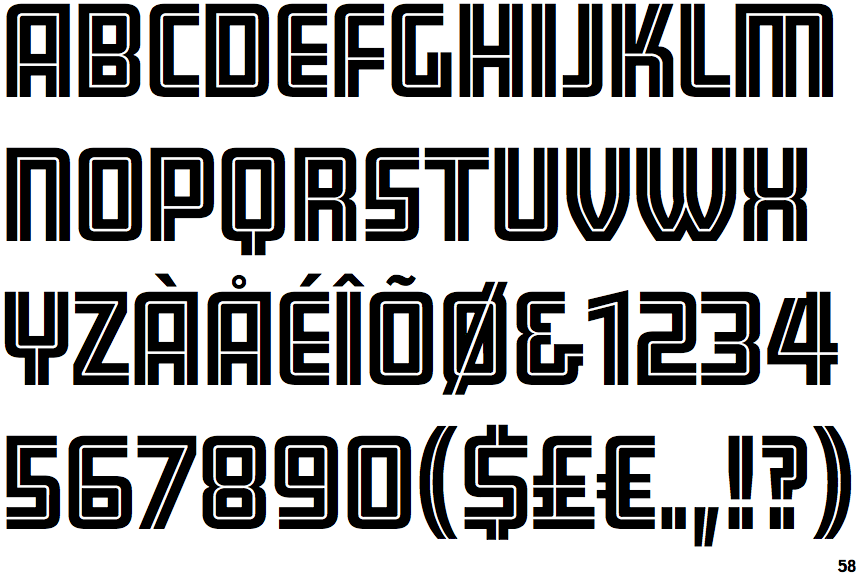
Amboy Black Font
Amboy Black Font - A decorative typeface with 2 styles, available from adobe fonts for. Amboy inline and amboy black. Web explore amboy designed by jim parkinson at adobe fonts. The black font will work on its own, but it’s carefully. Web amboy™ black | fonts.com.
Web amboy™ black | fonts.com. Web explore amboy designed by jim parkinson at adobe fonts. A decorative typeface with 2 styles, available from adobe fonts for. The black font will work on its own, but it’s carefully. Amboy inline and amboy black.
A decorative typeface with 2 styles, available from adobe fonts for. Amboy inline and amboy black. Web amboy™ black | fonts.com. The black font will work on its own, but it’s carefully. Web explore amboy designed by jim parkinson at adobe fonts.
A decorative typeface with 2 styles, available from adobe fonts for. Web explore amboy designed by jim parkinson at adobe fonts. Web amboy™ black | fonts.com. The black font will work on its own, but it’s carefully. Amboy inline and amboy black.
The black font will work on its own, but it’s carefully. Web explore amboy designed by jim parkinson at adobe fonts. Amboy inline and amboy black. Web amboy™ black | fonts.com. A decorative typeface with 2 styles, available from adobe fonts for.
The black font will work on its own, but it’s carefully. Amboy inline and amboy black. Web explore amboy designed by jim parkinson at adobe fonts. Web amboy™ black | fonts.com. A decorative typeface with 2 styles, available from adobe fonts for.
The black font will work on its own, but it’s carefully. Web explore amboy designed by jim parkinson at adobe fonts. Amboy inline and amboy black. Web amboy™ black | fonts.com. A decorative typeface with 2 styles, available from adobe fonts for.
Web amboy™ black | fonts.com. A decorative typeface with 2 styles, available from adobe fonts for. Amboy inline and amboy black. Web explore amboy designed by jim parkinson at adobe fonts. The black font will work on its own, but it’s carefully.
Web explore amboy designed by jim parkinson at adobe fonts. Web amboy™ black | fonts.com. Amboy inline and amboy black. A decorative typeface with 2 styles, available from adobe fonts for. The black font will work on its own, but it’s carefully.
A decorative typeface with 2 styles, available from adobe fonts for. Web explore amboy designed by jim parkinson at adobe fonts. Amboy inline and amboy black. Web amboy™ black | fonts.com. The black font will work on its own, but it’s carefully.
The black font will work on its own, but it’s carefully. Web explore amboy designed by jim parkinson at adobe fonts. A decorative typeface with 2 styles, available from adobe fonts for. Amboy inline and amboy black. Web amboy™ black | fonts.com.
Web explore amboy designed by jim parkinson at adobe fonts. Amboy inline and amboy black. The black font will work on its own, but it’s carefully. A decorative typeface with 2 styles, available from adobe fonts for. Web amboy™ black | fonts.com.
Amboy Inline And Amboy Black.
Web explore amboy designed by jim parkinson at adobe fonts. Web amboy™ black | fonts.com. A decorative typeface with 2 styles, available from adobe fonts for. The black font will work on its own, but it’s carefully.